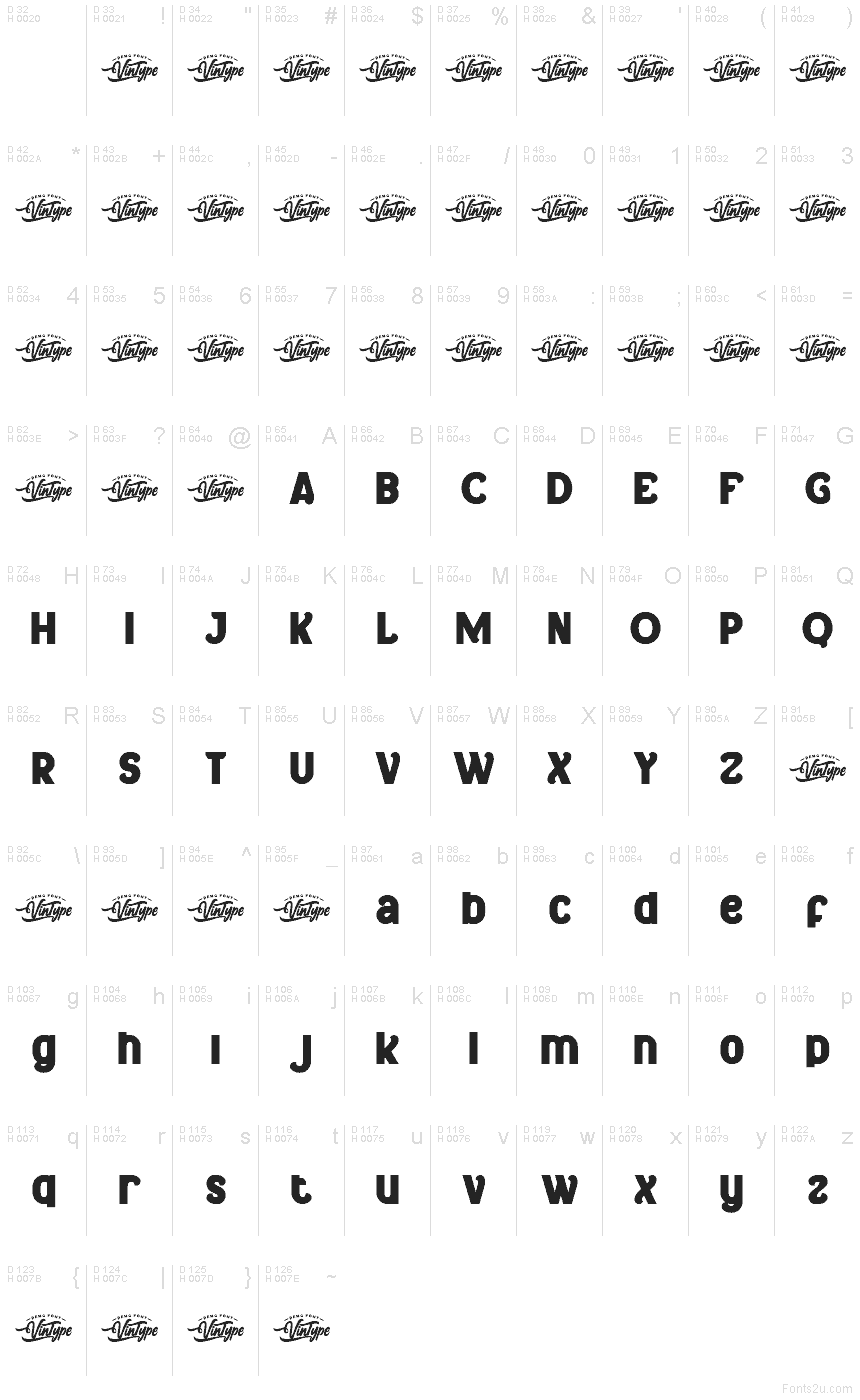
MoldPlanetDemo
MoldPlanet font by VinType is a free display font that leans into soft, molded forms with chunky curves and pillowy counters. Its rounded edges and gently swelling strokes create a buoyant, tactile rhythm—think bubble wrap meets sci‑fi signage. Letters feel cast, not carved, giving headlines a friendly weight without harsh angles or noise.
Using MoldPlanet, you get a playful, space‑age vibe that shines on gaming titles, slime‑themed event posters, toy packaging, STEM club flyers, sticker sheets, and bold landing-page hero text. This free font loves large sizes and roomy line spacing; pair it with a clean geometric sans for body copy to let the squishy charm stay center stage.